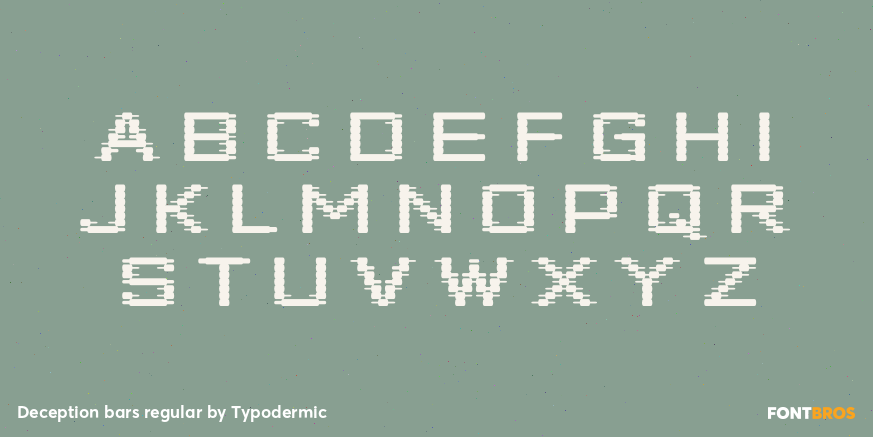
Deception bars regular
Deception Bars rebuilds the alphabet from repeated bands, giving words the look of a signal divided into slices for transmission, analysis, or repair. The treatment suggests scanning, compression, and interrupted broadcast data while keeping the underlying letterforms readable.
Use Bars for documentary title sequences, signal-processing conferences, telecommunications exhibits, video-wall graphics, cybersecurity reports, and motion identities that need a banded transition. Regular and Bold can alternate between supporting labels and high-impact titles without changing the visual process being described.
Deception bars regular by Typodermic